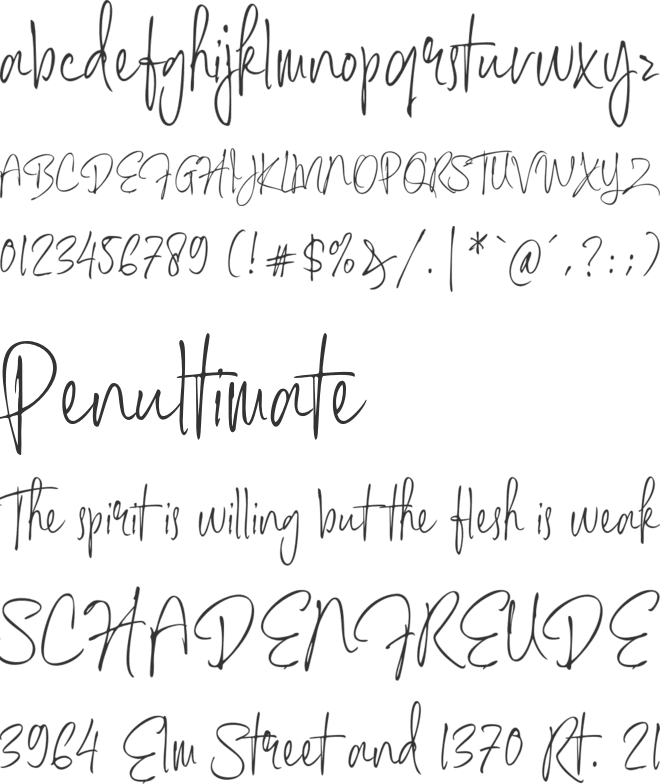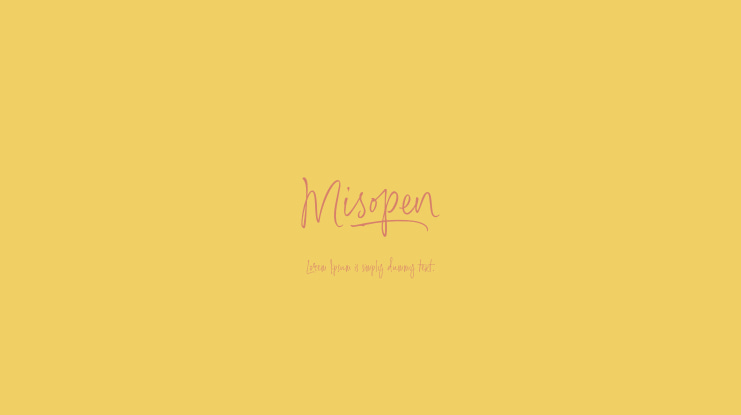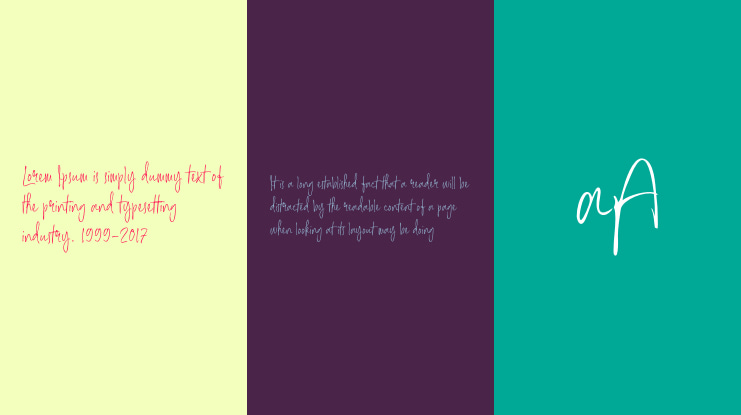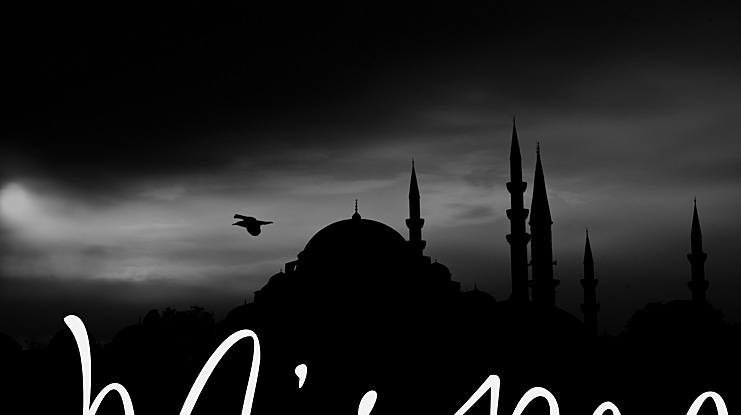
Misopen Font
Dexsar Harry Anugrah
Misopen is a handwriting script font with a unique, casual and beautiful handwriting style. Misopen was made using a calligraphy pen with a fine nib. This font was designed by writing a lot of sample letters and trying to make it connect natural. It also contains many OpenType "ligatures".
Each letter was made with love and designed to work well on designs like invitations, wedding, signatures, clothing, photography, branding, album covers and more. Just try it yourself.